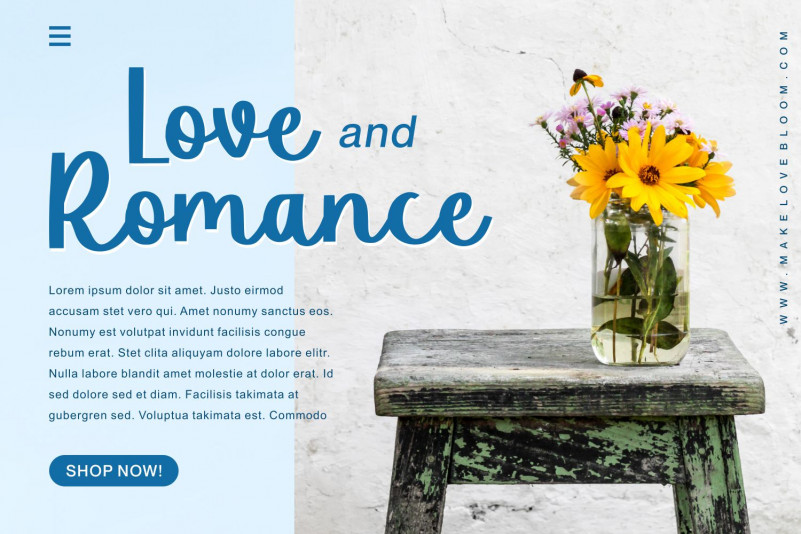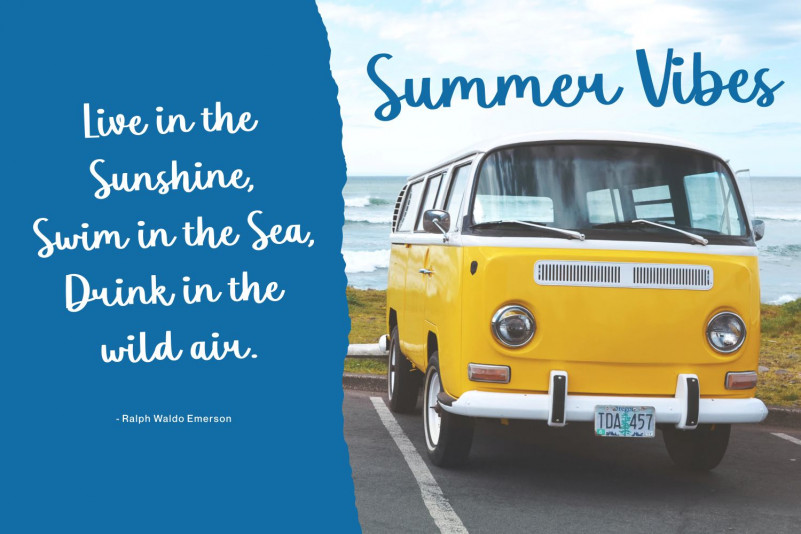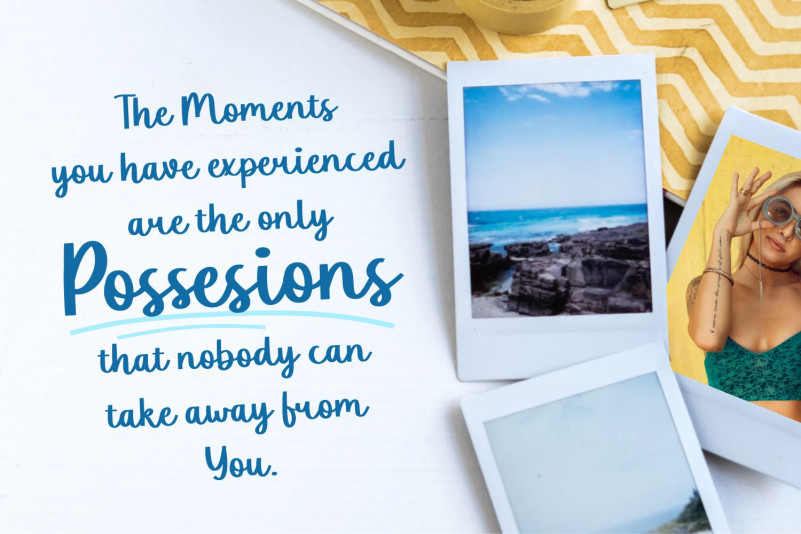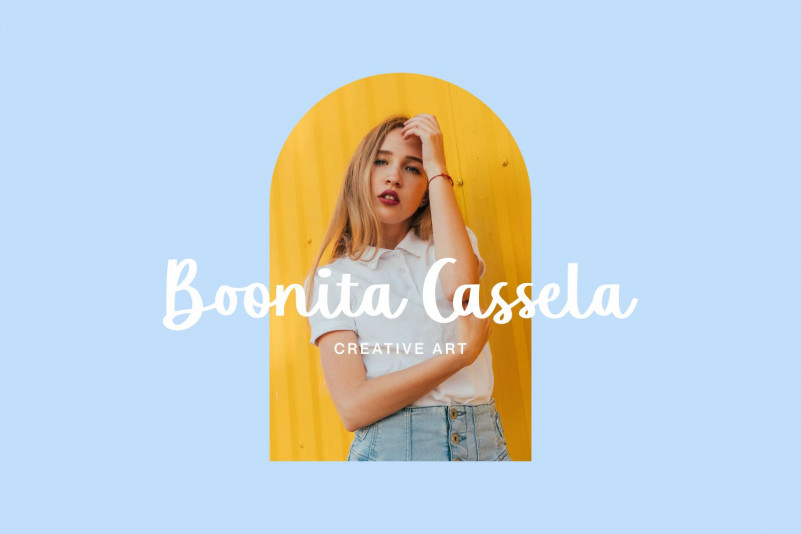
Summer Lightning Font
Summer Lightning Script Font
This is an exquisite handwritten font, masterfully designed to become a true favorite. It maintains its classy calligraphic influences while feeling contemporary and fresh. Fall in love with it and bring your projects to the highest levels!